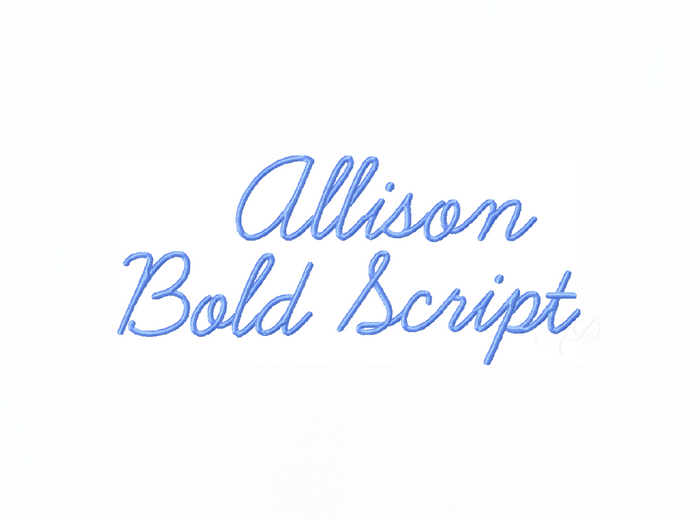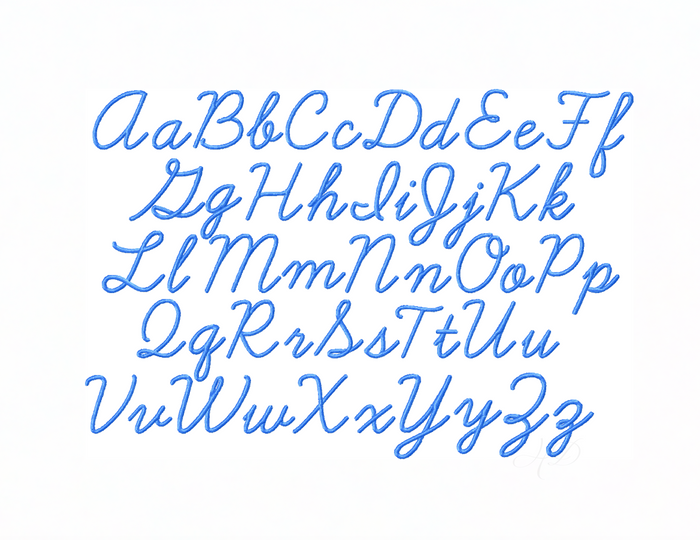
Allison Bold Satin Stitch Embroidery Font for Monogramming
Transform your crafting with the Allison Bold Satin Stitch Embroidery Font, designed for both elegant monogramming and versatile use. This font features 52 individual files that include both uppercase and lowercase letters, making it perfect for personalized embroidery projects.